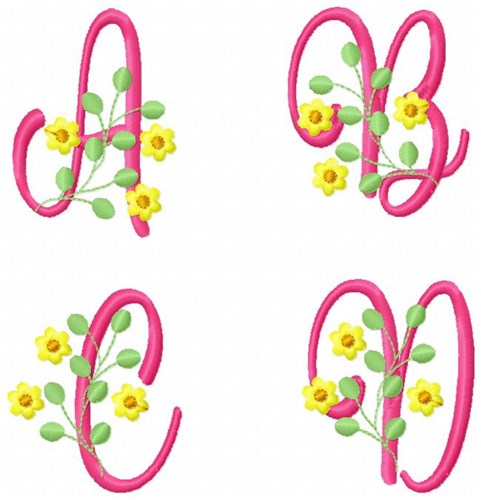
Satin Stripes is happy to present Floral Curves Monogram Embrilliance - Decorative Script Embroidery Font - Whimsical Floral Alphabet - BX font machine embroidery font which has Decorative script machine embroidery font ideal for holiday projects on table runners and gift bags. The letters A, B, C, and D showcase curvy outlines with floral accents. Available in BX font and Embrilliance formats. included. If you would like to view more embroidery fonts and alphabets please search our embroidery fonts page.
Floral Curves Monogram Embrilliance - Decorative Script Embroidery Font - Whimsical Floral Alphabet - BX font